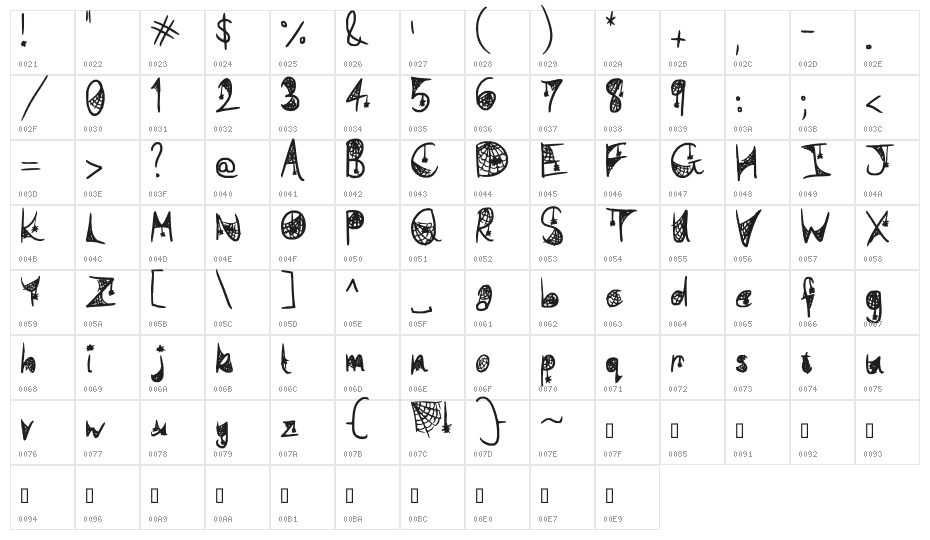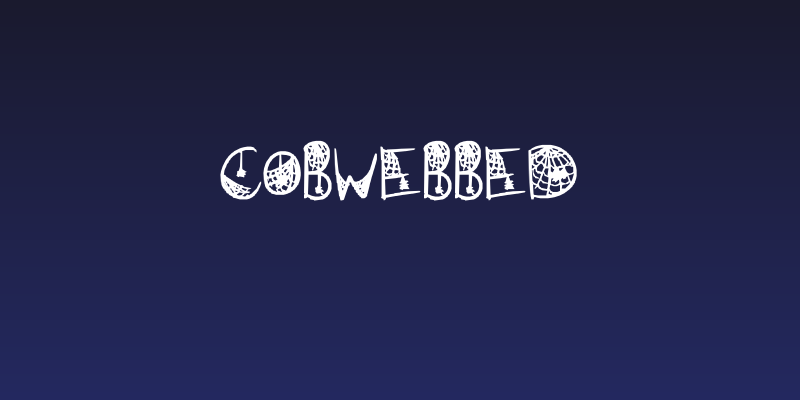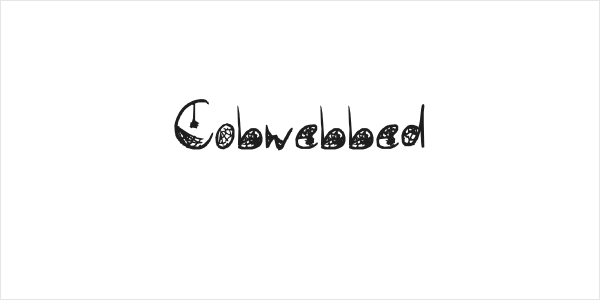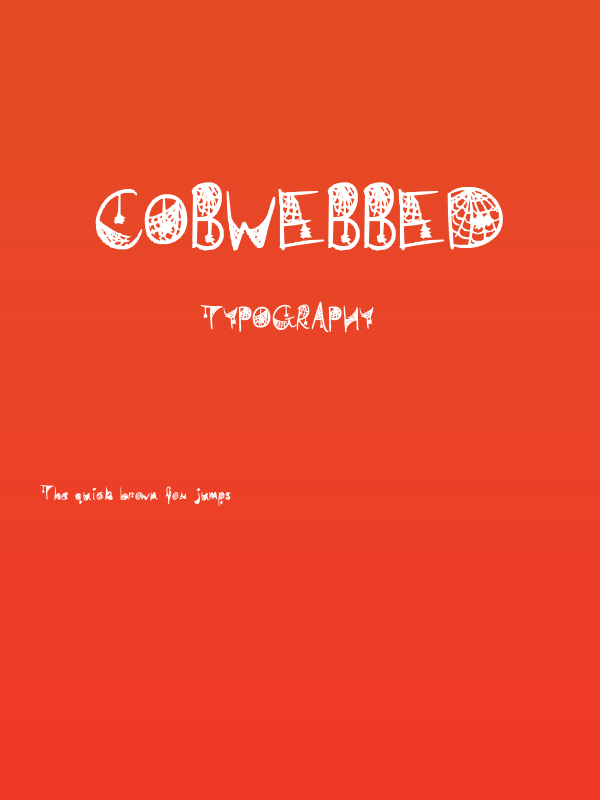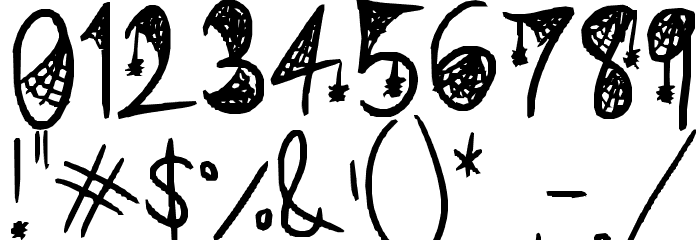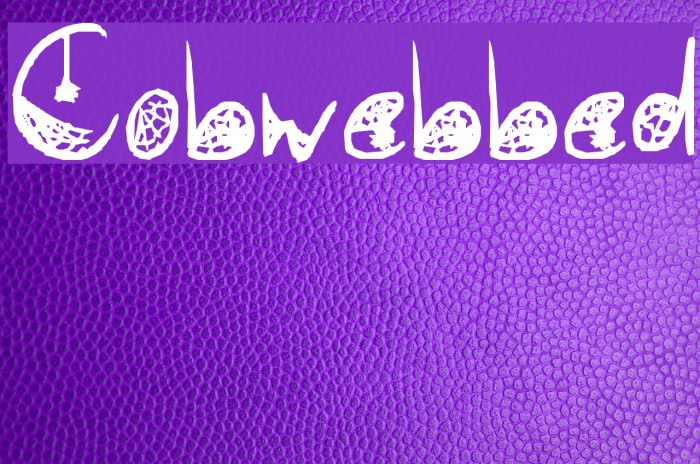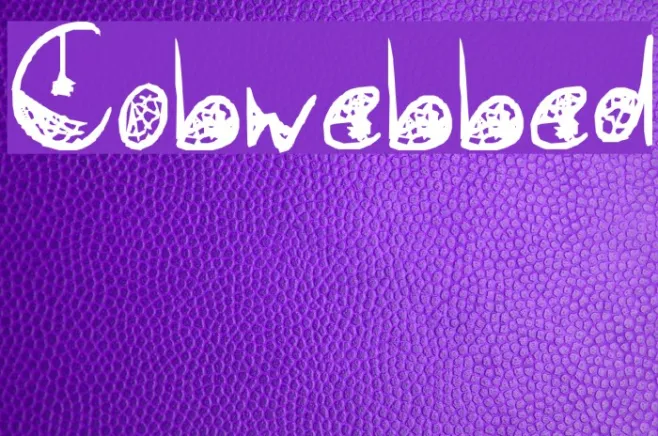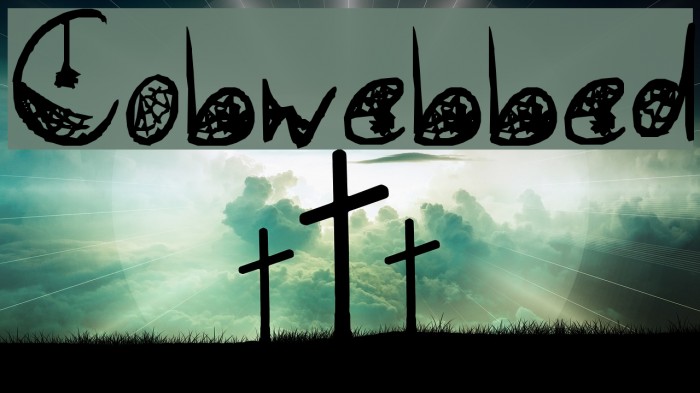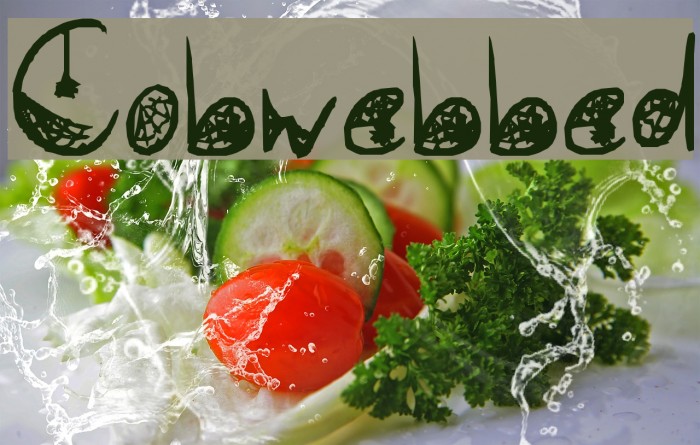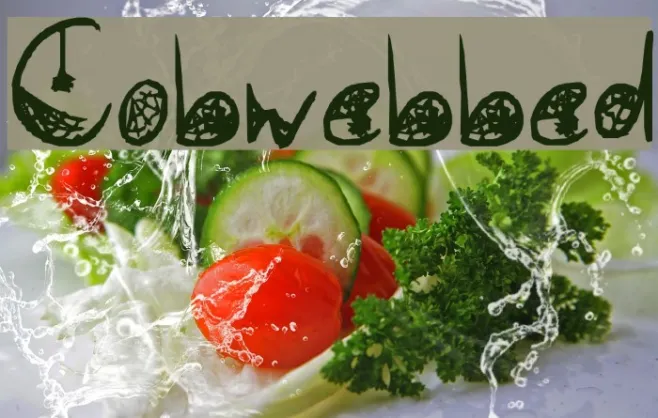
Cobwebbed Font
Cobwebbed Description
This font features a unique and playful design, reminiscent of cobwebs and Halloween themes. Each character is adorned with intricate web-like patterns, creating a spooky and whimsical appearance. The letters are bold and have a hand-drawn quality, with varying line thickness that adds to the eerie aesthetic. The uppercase and lowercase letters maintain a consistent style, while the numbers and special characters are equally detailed, enhancing the overall theme. This font is perfect for projects that require a touch of mystery and fun, such as Halloween invitations, themed posters, or creative branding.
| Use Case | Headlines, Logos, Themed Invitations |
| Proposed Projects | Ideal for Halloween invitations, themed posters, creative branding, and spooky event materials. |